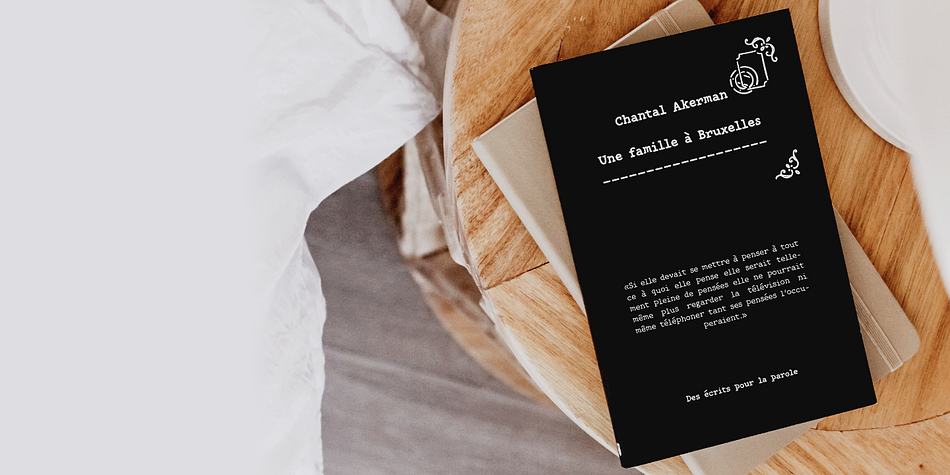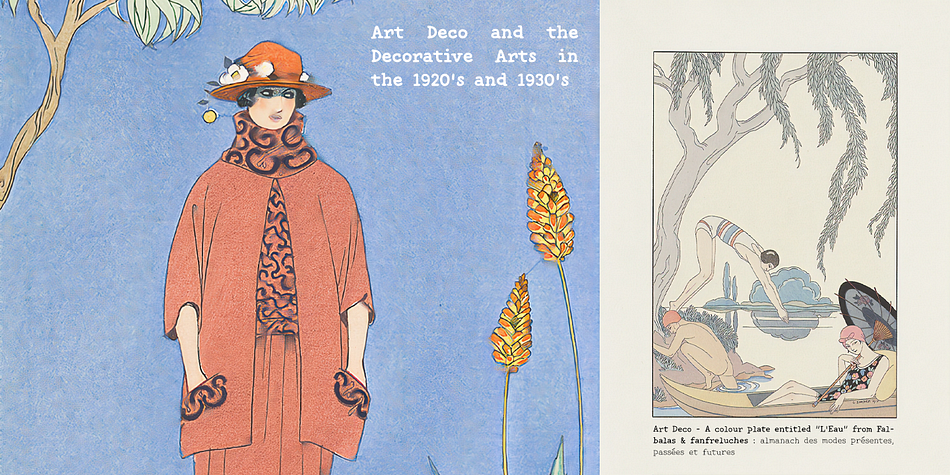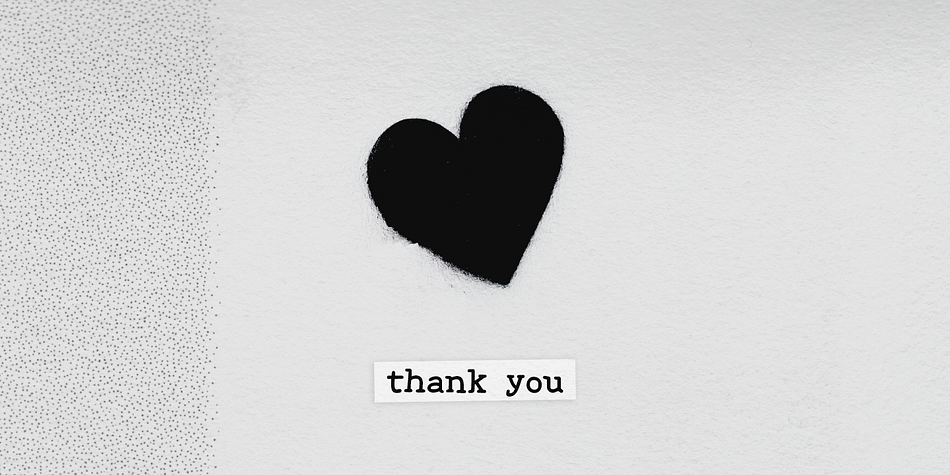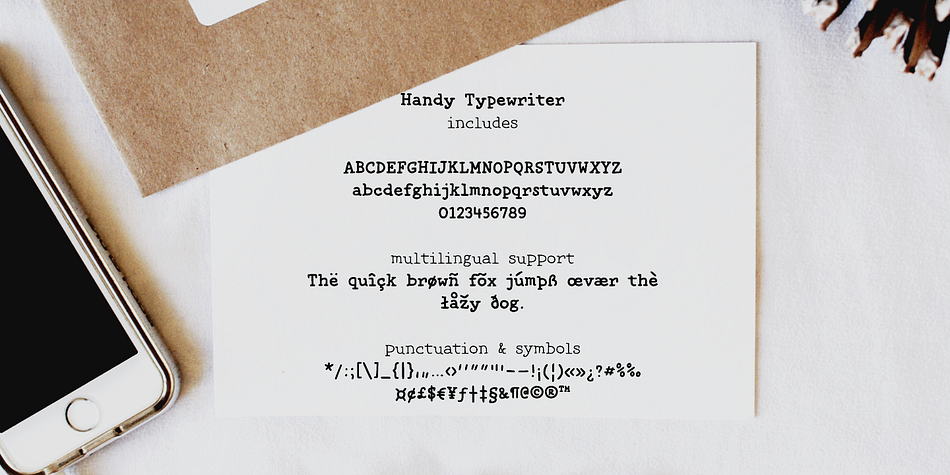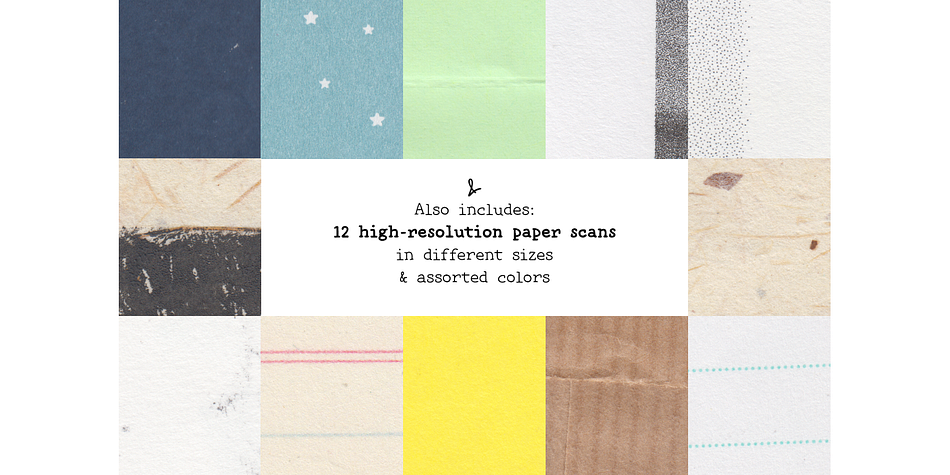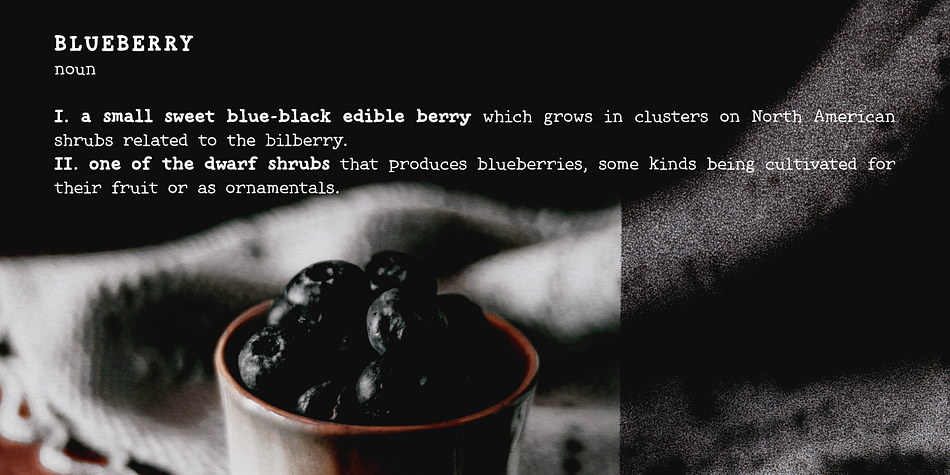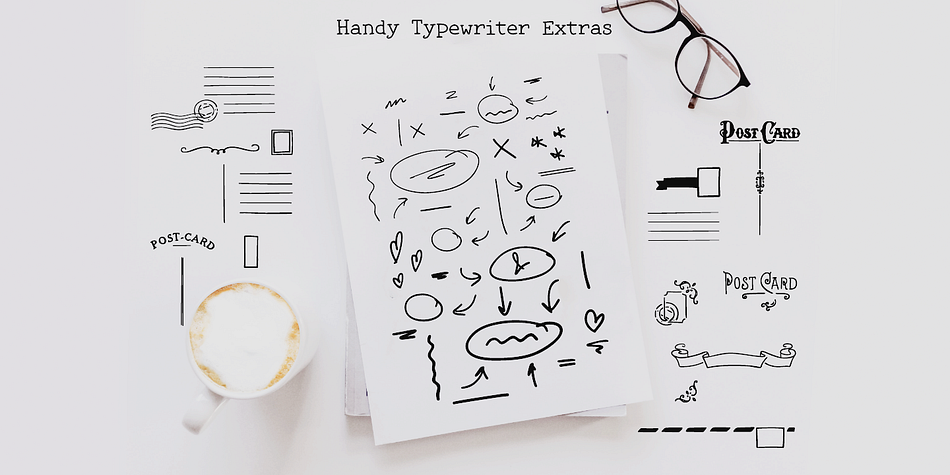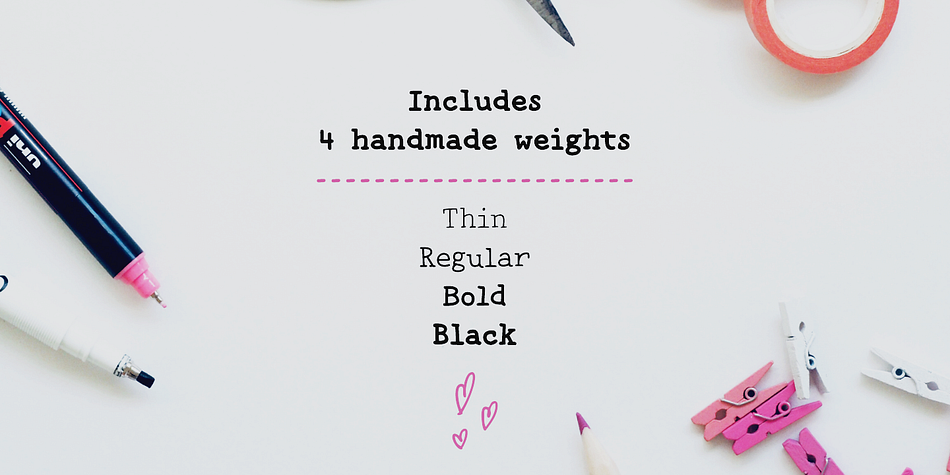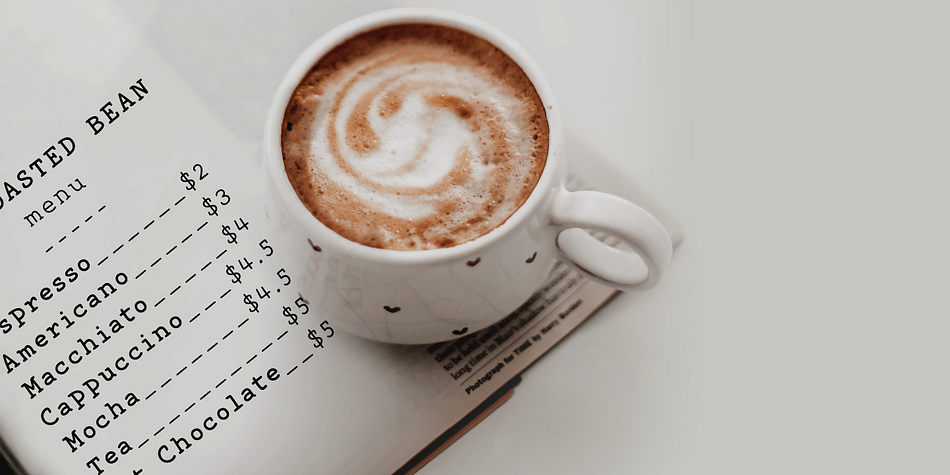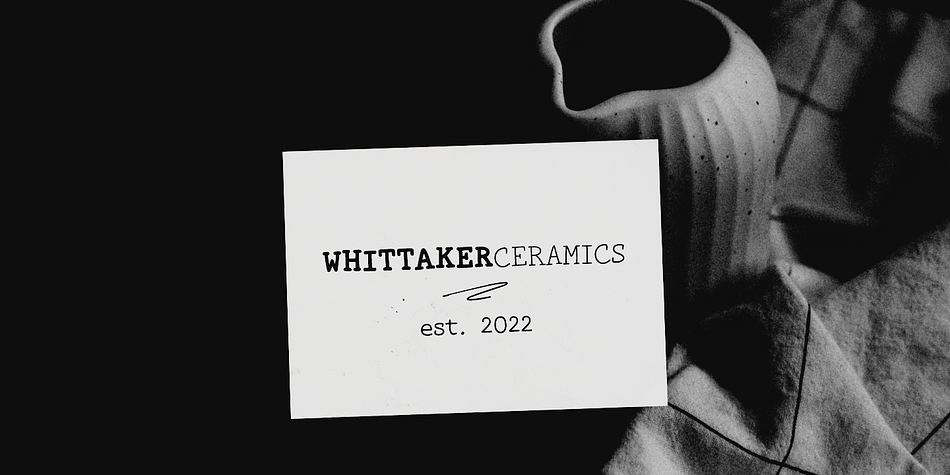
Handy Typewriter
Designed by Ana Parracho, Handy Typewriter is a multiple classification font family. This typeface has five styles and was published by Ana's Fonts.
Handy Typewriter is a handwritten typewriter font in 4 handmade weights, with lots of extras. Handy Typewriter has a more casual look than classic typewriter fonts, but can still be used in any designs that need a vintage touch. This font is very legible at a wide range of sizes and looks great in both long or short texts, in digital collages, branding and packaging, social media posts, logotypes, etc.
- Handy Typewriter font in 4 weights: Thin, Regular, Bold and Black, hand drawn from scratch
- Handy Typewriter Extras is a set of 62 hand drawn doodles, to decorate your text